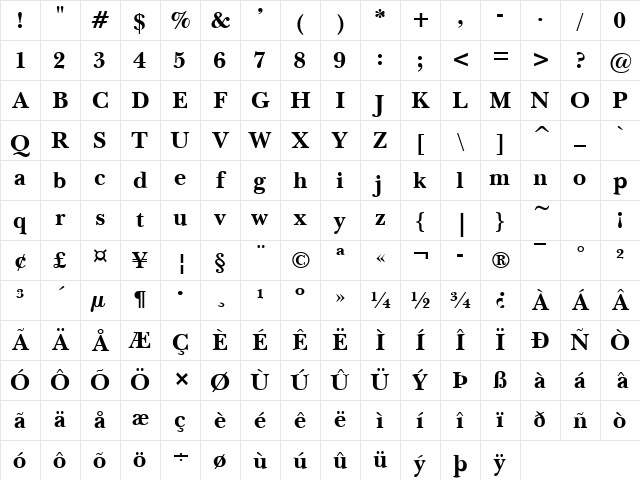
Baskerton Bold Free Font
Baskerton Bold
Baskerton Family
Baskerton Bold
Complete Baskerton Bold glyph index. Displaying only characters natively supported by Baskerton Bold font.
Design Context for Baskerton
Baskerton is a composed and adaptable typeface that performs quietly and consistently across a wide range of design contexts. Its bold stroke weight gives it real presence on the page.